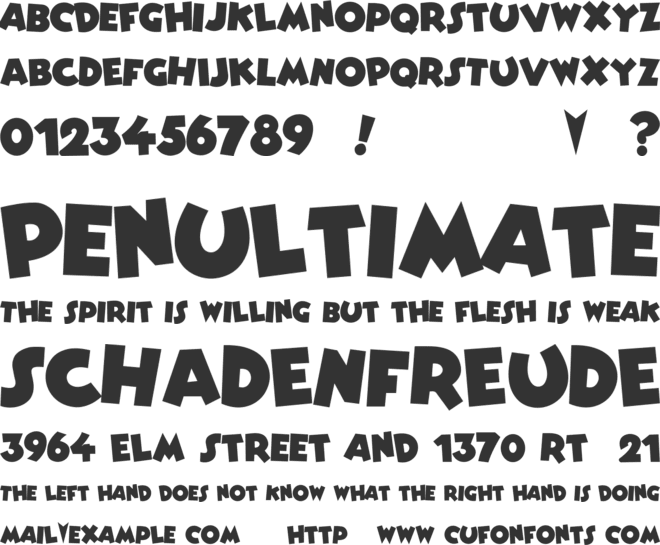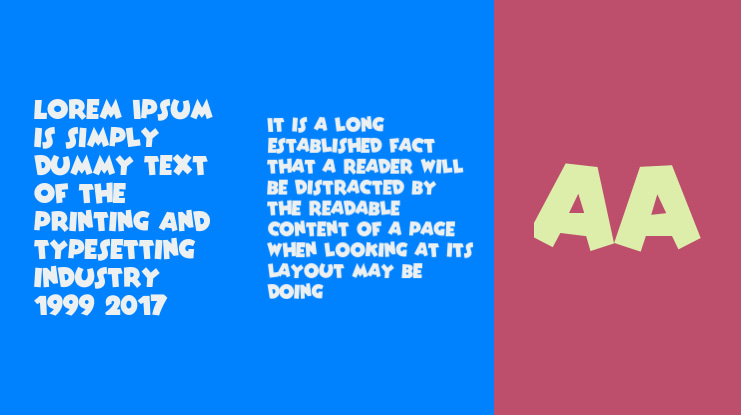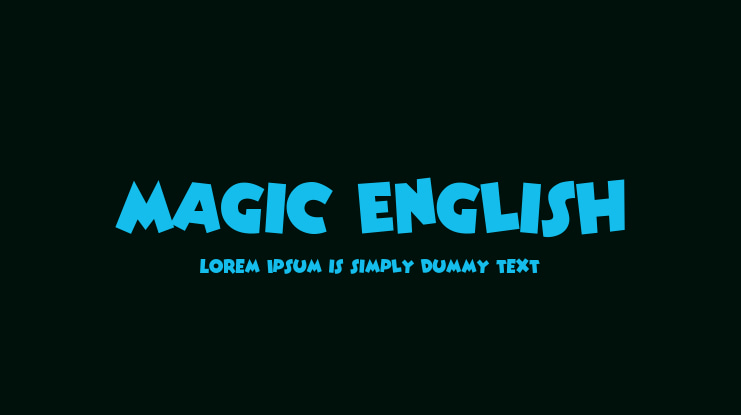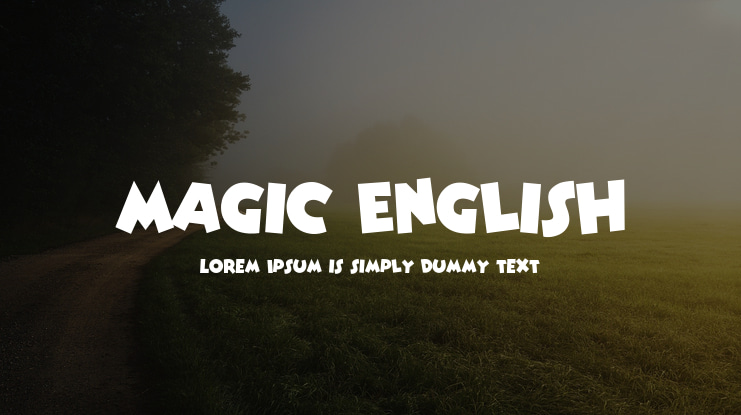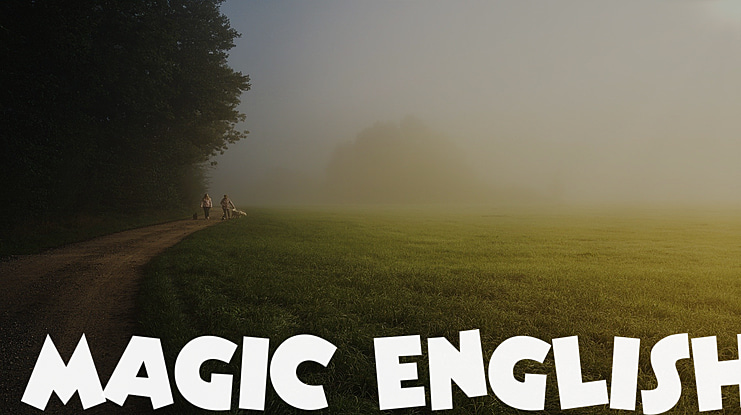
Magic English Font
"Have fun with Disney every day!"
Recreation of the "Mickey Mouse font" used in Disney's "Magic English" series of videos, known mostly outside of the US.
Lowercase letters are alternate rotations of uppercase.